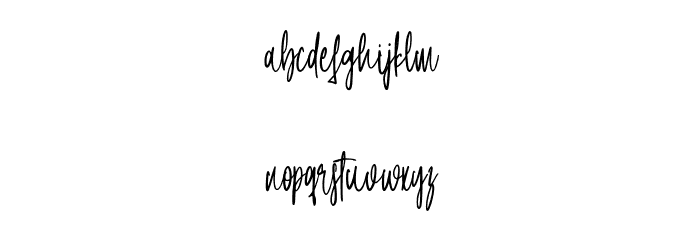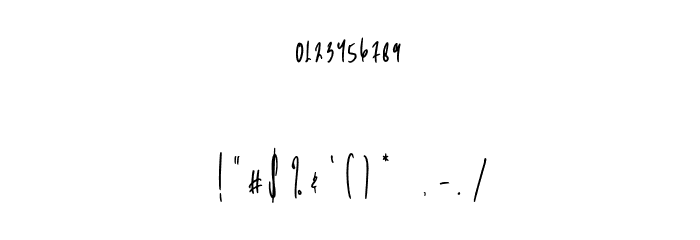
Lintang Kangen - Regular Font
This font features a playful and artistic script style with a handwritten appearance. The uppercase letters are tall and elegant, with a slight slant that adds a dynamic flow to the text. The lowercase letters are more compact, maintaining a consistent style with the uppercase set. The numbers are clear and legible, with a unique flair that matches the overall aesthetic. Special characters are creatively designed, enhancing the font's decorative appeal. The strokes vary in thickness, providing a medium contrast that adds depth and interest to the characters. This font is perfect for projects that require a personal touch, such as invitations, greeting cards, or branding materials.
A playful, handwritten script font with elegant, flowing characters.
- Font: Lintang Kangen - Regular
- Proposed Projects: Ideal for invitations, greeting cards, branding, and creative projects.
- Category: Script
- Use Case: Logos, Headlines, Invitations